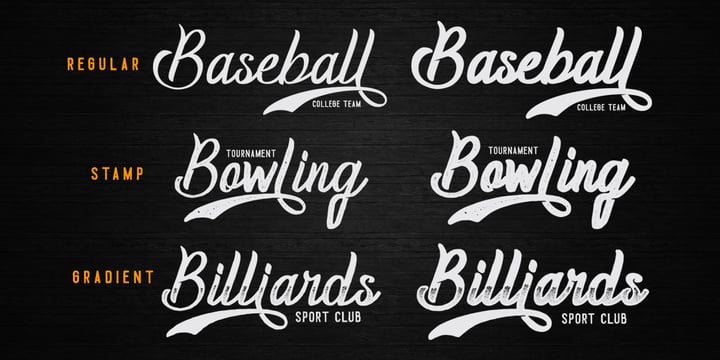
Homerun
Homerun by madeDeduk
Homerun Font Family was designed by Suandana ipandemade and published by madeDeduk. Homerun contains 6 styles and family package options. More about this family
About Homerun Font Family
Designers: Suandana ipandemade
Publisher: madeDeduk
Foundry: madeDeduk